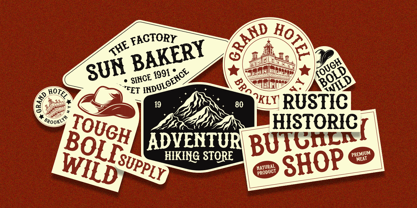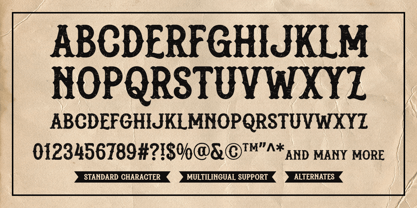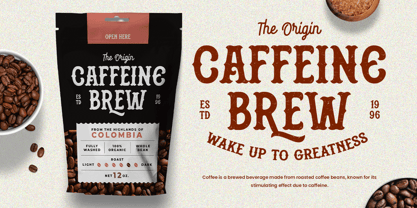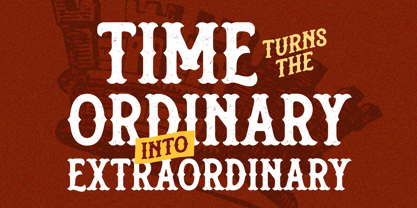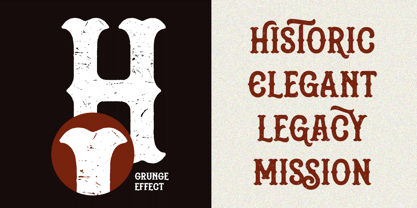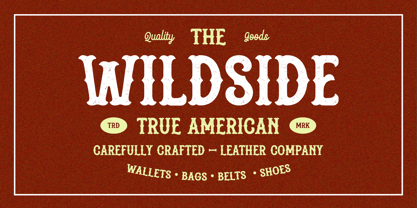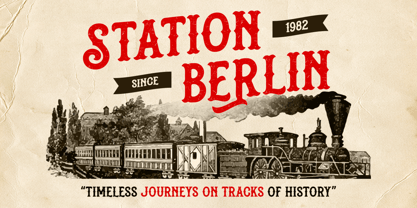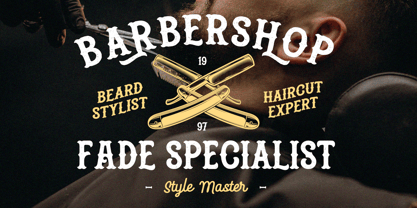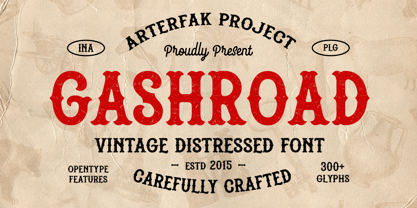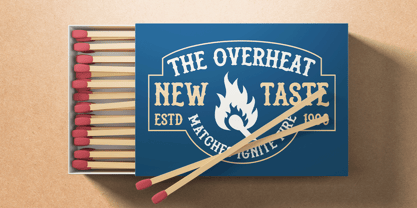
Gashroad
par Arterfak Project
La famille de polices Gashroad a été conçue par Ahmad Ramzi Fahruddin et publiée par Arterfak Project. Gashroad contient 2 styles et options de package familial.
Gashroad is a handcrafted vintage font. Inspired by Western-style typography and vintage print labels, this font offers flexibility for your design.
Designed with a grunge effect, strong serifs & strokes, it's perfect for those who need a vintage aesthetic style. This font is old and new at the same time, including beautiful alternate characters to give your design uniqueness and make it stand out.
Ideal for posters, logos, logotypes, labels, apparel, social media, books, flyers, advertising, and more!
Fonts featured :
• Uppercase
• Smallcaps
• Numbers
• Punctuation
• Numbers & Symbols
• Stylistic alternates
• Stylistic set.